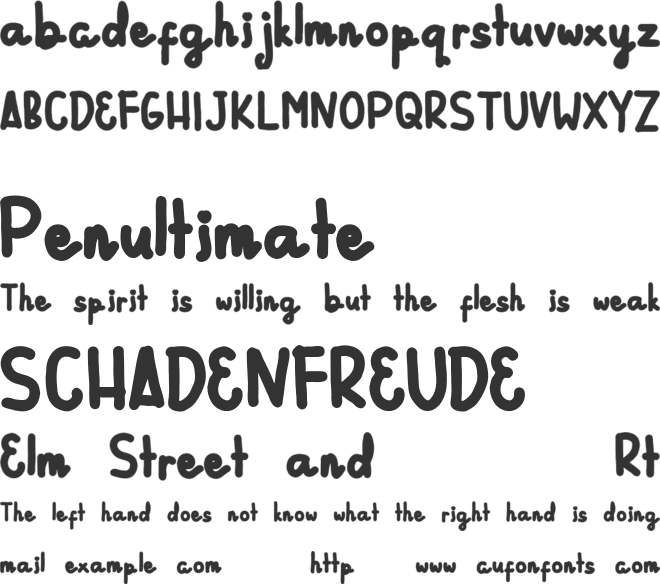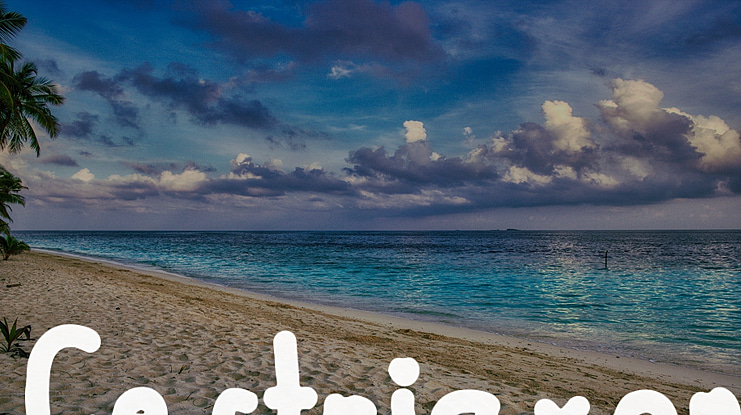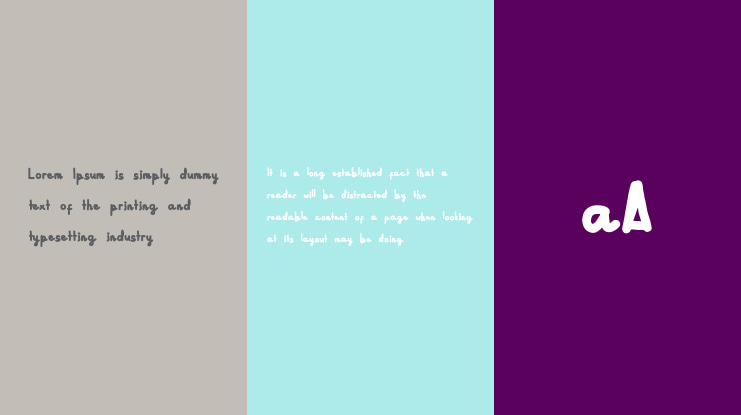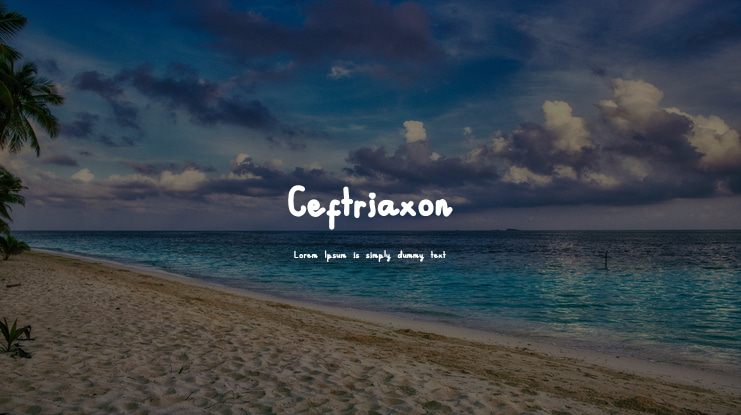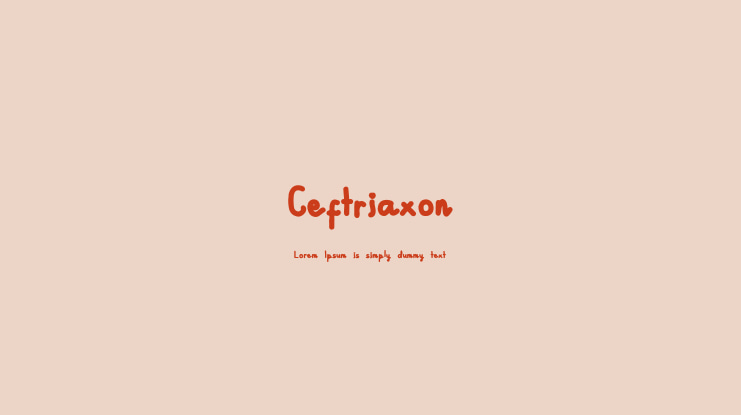
Ceftriaxon Font
Ceftriaxon is a simple and casual handwritten font. Its natural and unique style makes it incredibly fitting to a large pool of designs.